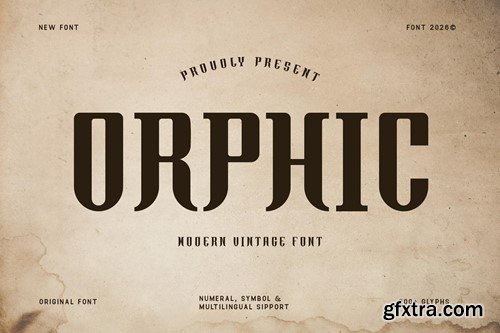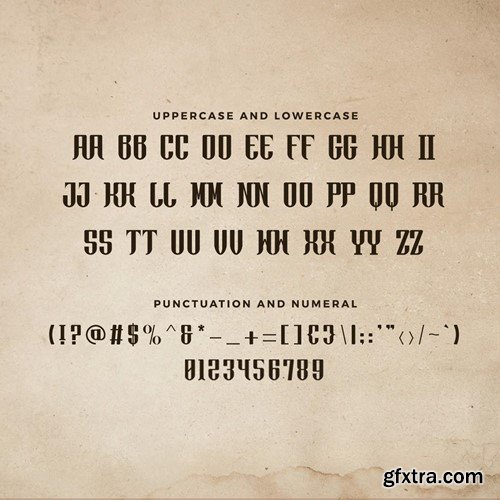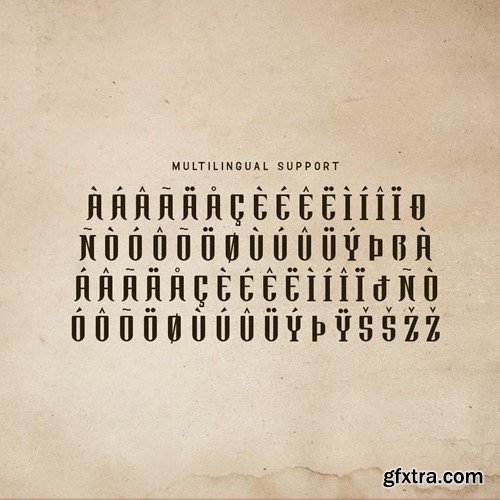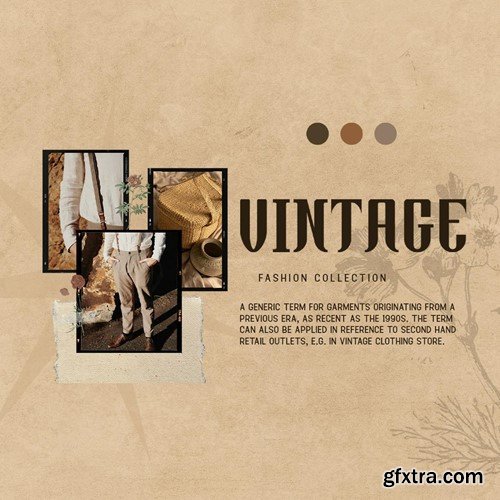
Orphic - Modern Vintage Font Introducing "Orphic," a modern vintage font that seamlessly blends the charm of the past with contemporary design elements. Perfect for graphic designers, typographers, and creatives seeking a unique and nostalgic aesthetic, Orphic offers a timeless and versatile style ideal for various design projects. You will receive the font files in TTF, OTF, and WOFF formats Ideal for retro-inspired branding, vintage-themed editorial layouts, classic packaging, stylish invitations, and distinctive advertising, Orphic’s elegantly crafted characters evoke a sense of history and sophistication. Each letter is meticulously designed to ensure excellent readability while maintaining a unique vintage flair, making your designs both captivating and memorable. The "Orphic" font includes a complete set of uppercase and lowercase letters, numbers, punctuation marks, and special characters. This versatile set allows for seamless integration into various design applications, from retro branding to elegant editorial layouts. Rediscover the classic charm with Orphic, the modern vintage font that adds a touch of nostalgia to every character.